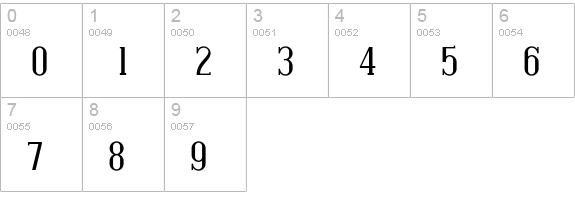
Covington Font Details
Covington font is a stunning display typeface that exudes elegance and sophistication. With its sleek lines and modern design, Covington is perfect for adding a touch of class to any project. This versatile font is ideal for a wide range of design applications, from branding to packaging to editorial design. What sets Covington font apart is not just its impeccable design, but also the fact that it is available for free download at FontsMarket.com. This means that you can access this beautiful font without any cost, making it an excellent choice for designers looking to elevate their work without breaking the bank. Whether you're working on a sleek corporate identity or a high-end editorial layout, Covington font is sure to impress. Its clean lines and timeless appeal make it a standout choice for any project. Download Covington font for free today and add a touch of sophistication to your designs.